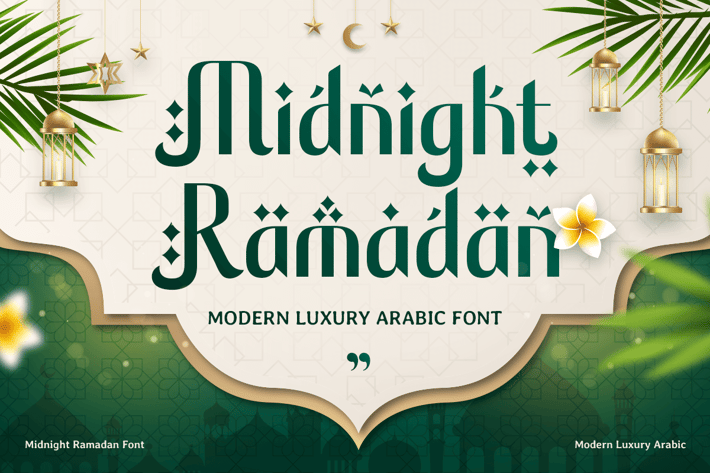
Midnight Ramadan - Modern Luxury Arabic Font
A Sophisticated Tribute to Ramadan Nights
Midnight Ramadan is a modern luxury Arabic font inspired by the serene elegance of Ramadan nights. Its sleek design and refined curves evoke the beauty and spirituality of this sacred month.
Designed for Prestige and Elegance
Perfect for creating high-end invitations, branding, packaging, and social media content, Midnight Ramadan adds a luxurious touch to your Ramadan projects. Its modern aesthetics make it versatile for various creative applications.
A Blend of Tradition and Contemporary Design
Midnight Ramadan combines the timeless charm of Arabic calligraphy with a modern twist, offering a typeface that stands out in elegance and functionality. This font is your go-to for sophisticated and culturally rich designs.
Midnight Ramadan Modern Luxury Arabic Font Features:
Alternates Characters Ready
Punctuation, Number, and Symbol
* Opentype Features